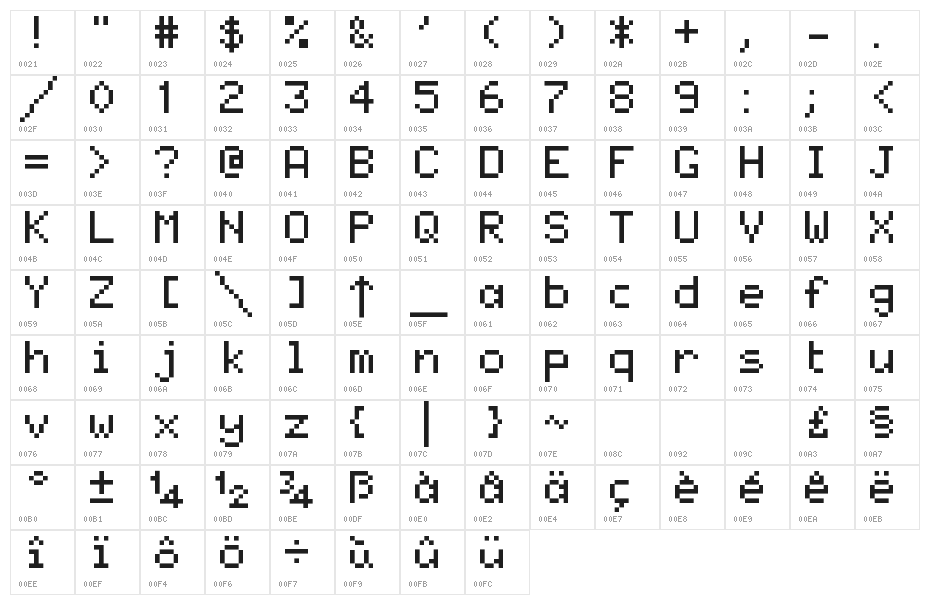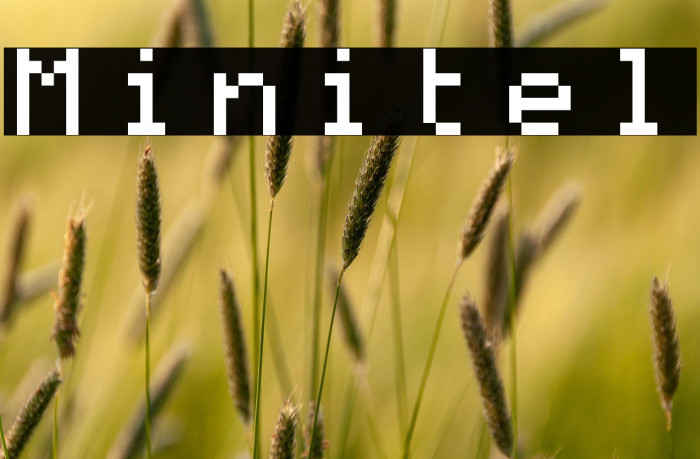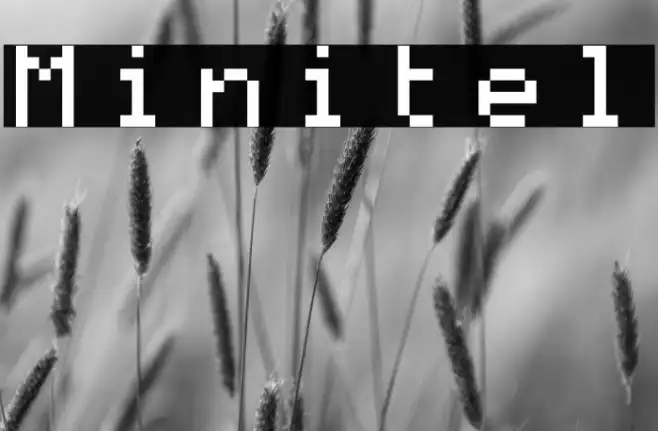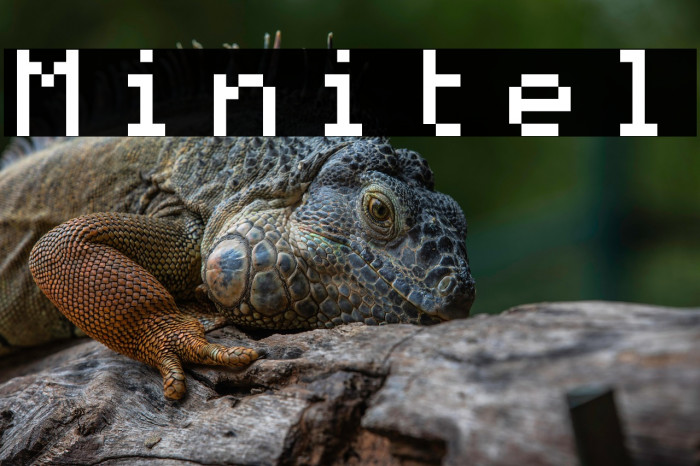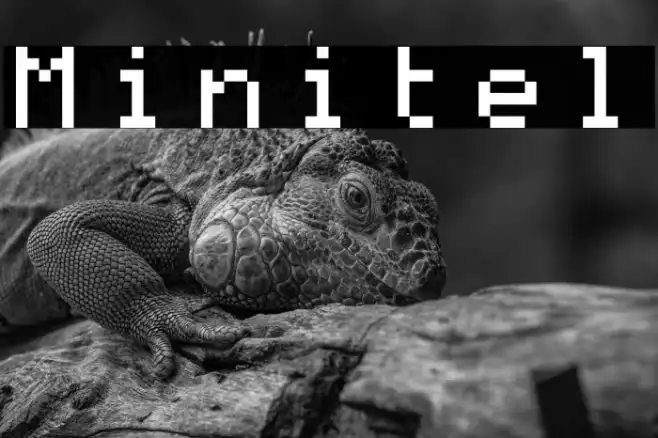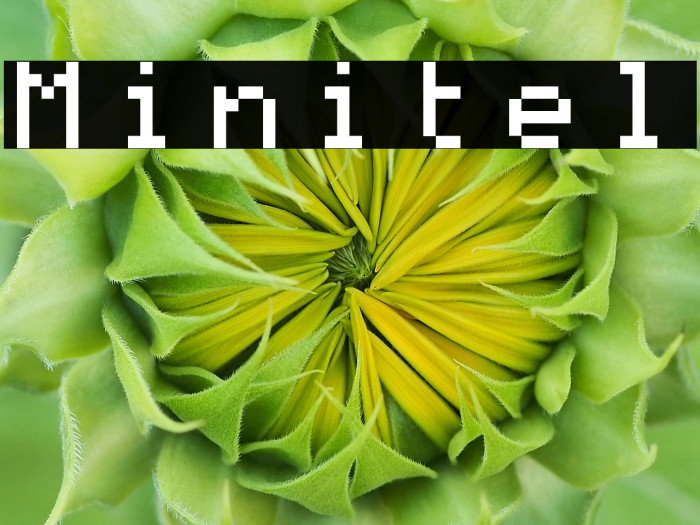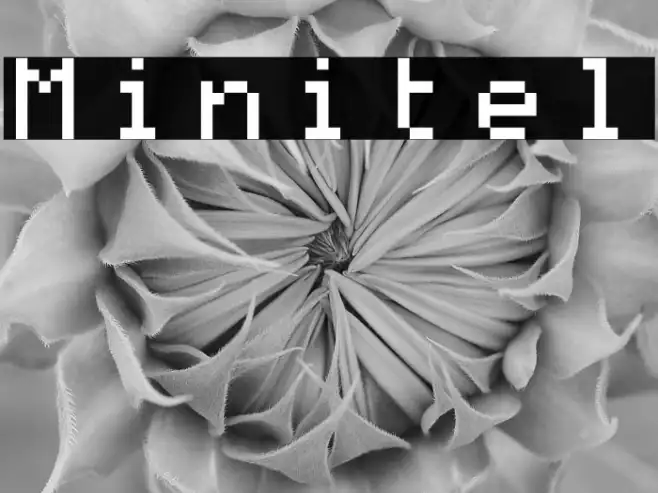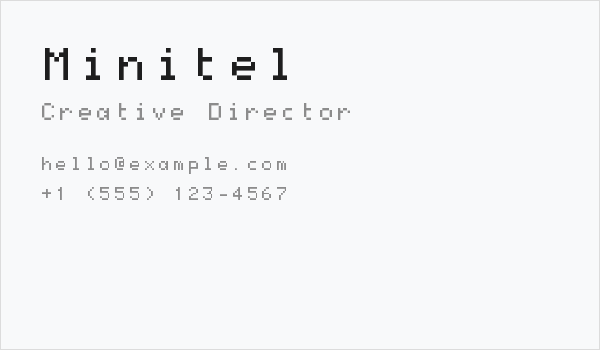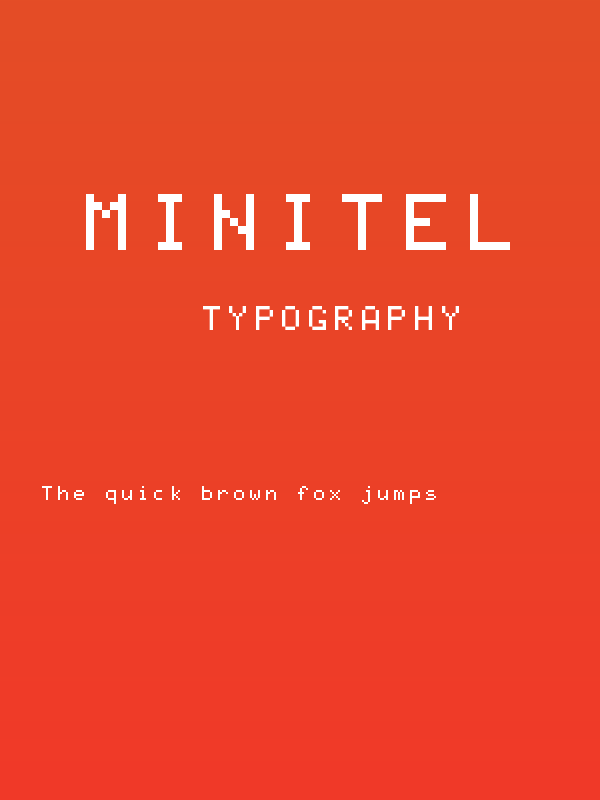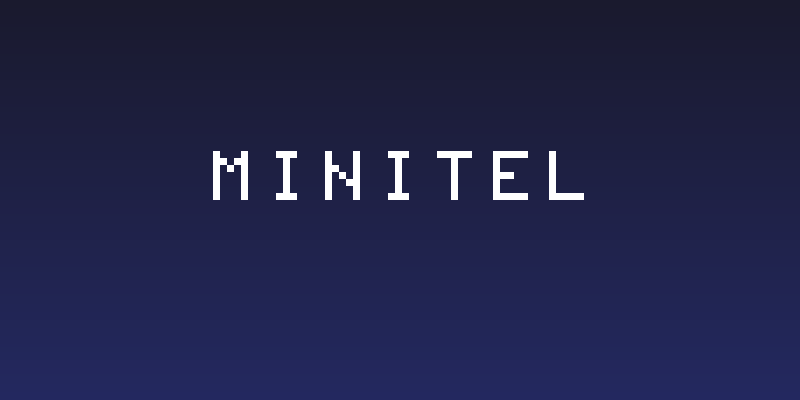
Minitel Font
Minitel Description
This font is a pixelated, monospaced typeface that evokes a retro, digital aesthetic reminiscent of early computer displays and video games. Each character is constructed with a uniform grid of pixels, giving it a blocky and geometric appearance. The uppercase and lowercase letters maintain consistent height and width, enhancing readability and creating a cohesive look. Numbers and special characters follow the same pixelated style, ensuring uniformity across all glyphs. The simplicity and clarity of this font make it ideal for digital interfaces, coding environments, and projects that aim to capture a vintage tech vibe.
| Use Case | Digital interfaces, Coding, Retro designs |
| Proposed Projects | Ideal for retro video games, digital art projects, coding interfaces, and tech-themed designs. |